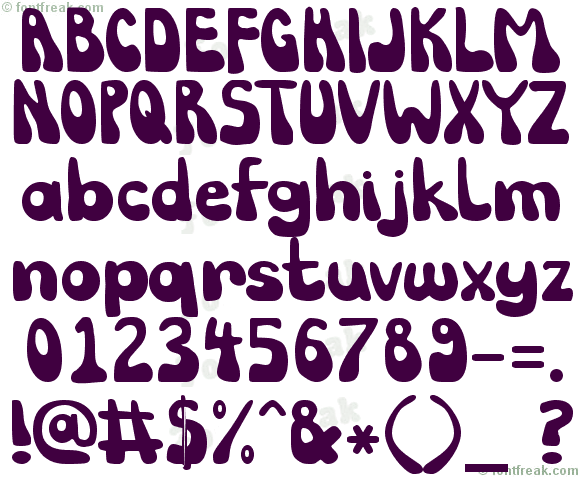
About Syreeta
Syreeta is a distinctive display typeface designed by The Fire Angel, released in 2000. This font exemplifies a playful and modern aesthetic, making it perfect for a variety of creative projects. With its unique character shapes and rounded edges, Syreeta stands out as a decorative font that captures attention without overwhelming the viewer. The stroke weight is relatively consistent, creating a harmonious look, while the spacing is well-balanced, ensuring legibility even in larger body text.
The visual characteristics of Syreeta include a delightful mix of quirky letterforms and subtle decorative elements that add a touch of personality. The rounded, bubbly shapes evoke a sense of friendliness and approachability, which can enhance the emotional appeal of any design. This font is particularly suited for use cases such as wedding invitations, where its charm can add a romantic flair; movie posters, where its boldness can draw in an audience; restaurant menus, creating an inviting atmosphere; and children's book covers, appealing to young readers and their parents alike.
Target audiences for the Syreeta font include graphic designers looking to infuse their projects with whimsy, small business owners aiming to create memorable branding, and content creators seeking to enhance their visual storytelling. The versatility of this typeface makes it a valuable addition to any designer's toolkit.
What truly sets Syreeta apart is its ability to blend fun and function seamlessly. Its distinctive style ensures that it will leave a lasting impression, making it an excellent choice for anyone looking to elevate their design work. For those interested in adding this unique typeface to their collection, a Syreeta font free download is readily available, enabling creative exploration without financial commitment.